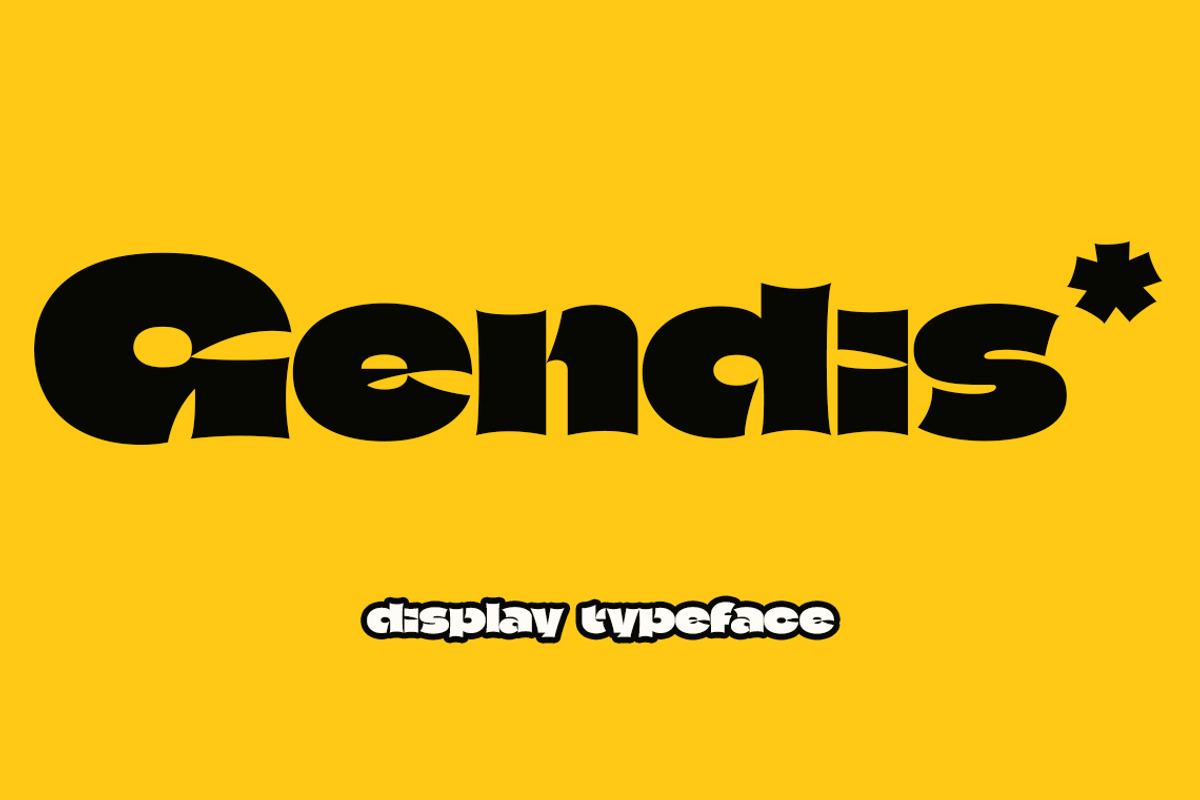
Elevate your visual identity with a bold, eye-catching style using Gendis Display Typeface Free Download. Designed to stand out, this typeface is perfect for headlines, posters, logos, and branding materials that demand attention. With its strong geometric lines and modern curves, Gendis combines elegance with a commanding presence—ideal for both digital and print media.
Whether you’re crafting fashion branding, magazine layouts, or high-impact social media graphics, Gendis adds a premium and contemporary flair to your work. It includes a full set of uppercase characters, stylish alternates, and essential punctuation, making it a flexible tool for designers during the concept phase.